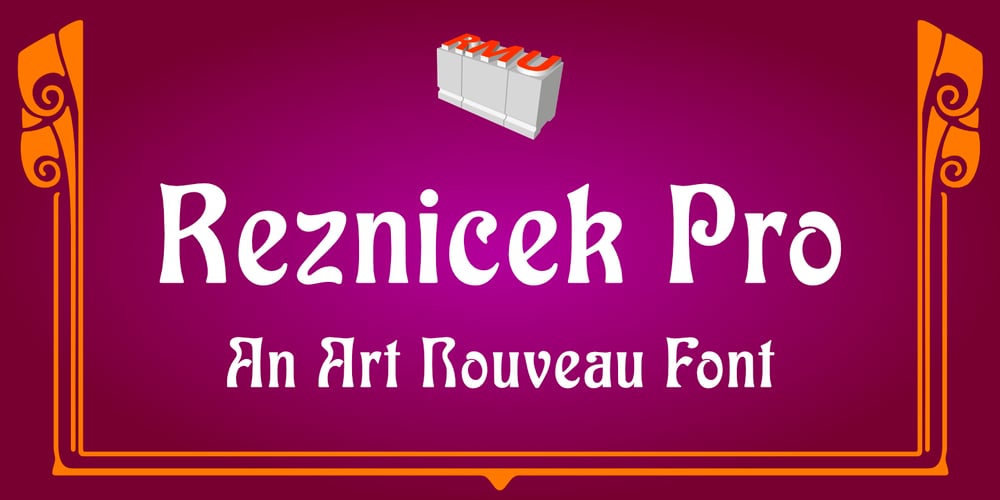
Reznicek Pro Font Family was designed by Ralph M. Unger and published by RMU. Reznicek Pro contains 1 styles and family package options. This revival of the typeface Baldur, published by Julius Klinkhardt in 1901, is a fine, harmonious and legible Art Nouveau font named after Ferdinand von Reznicek (1868-1909), one of the leading artists and illustrators of those times.